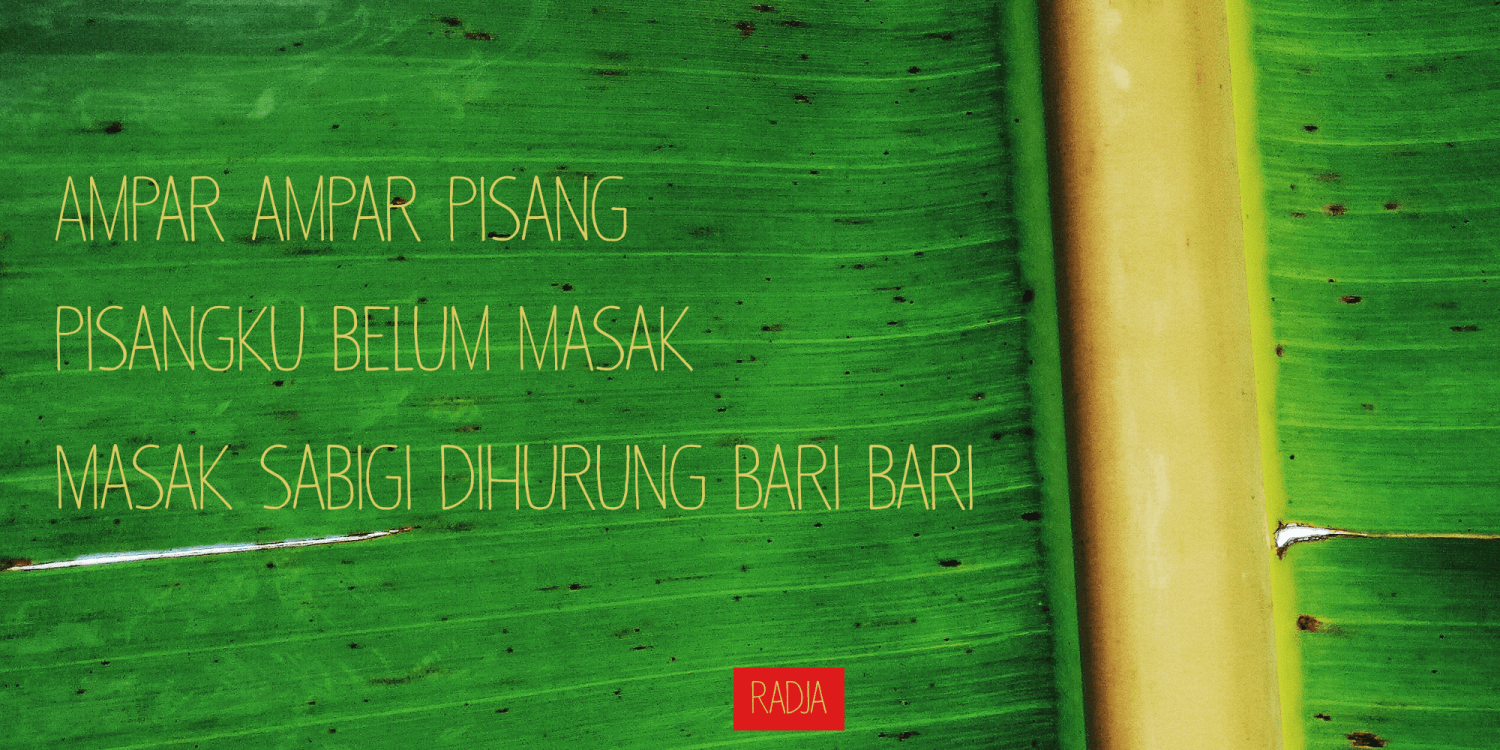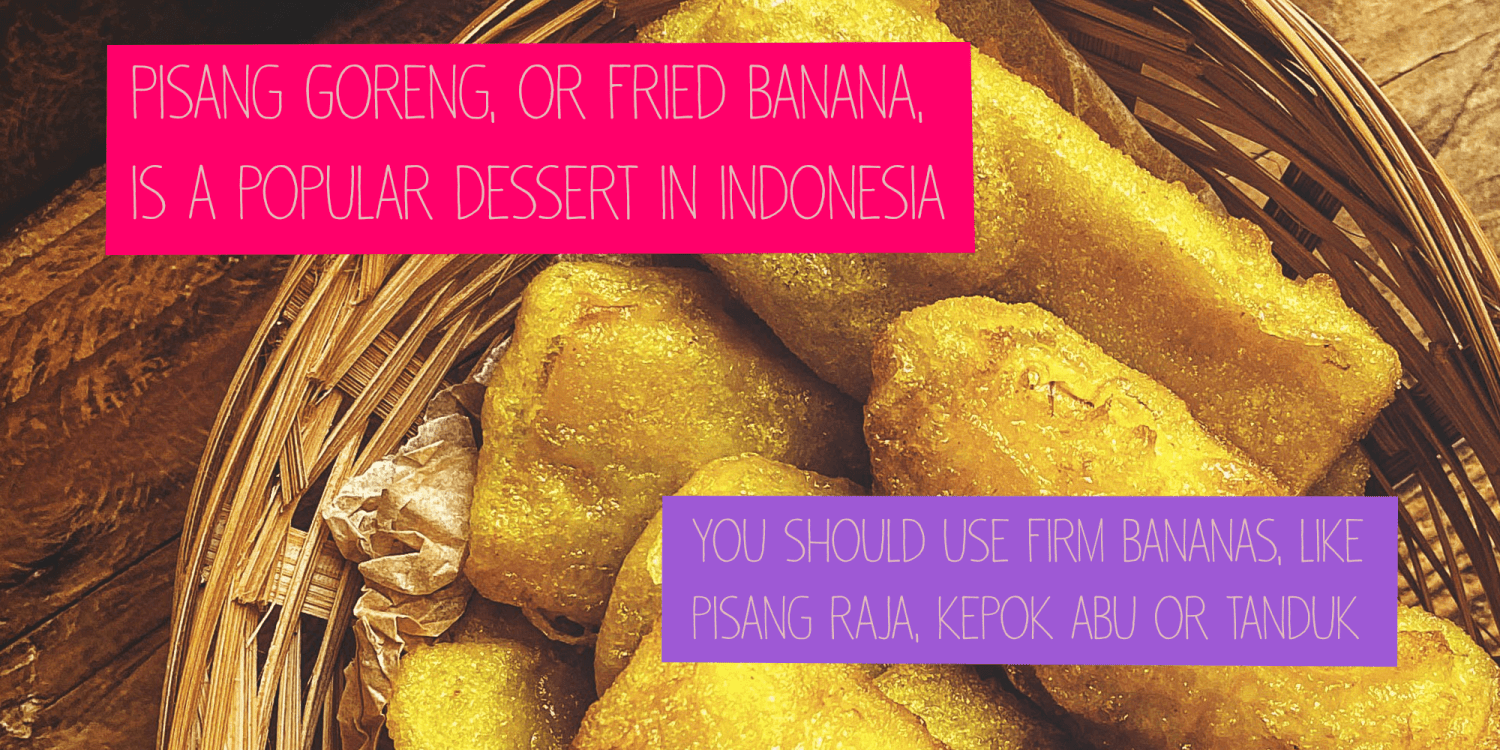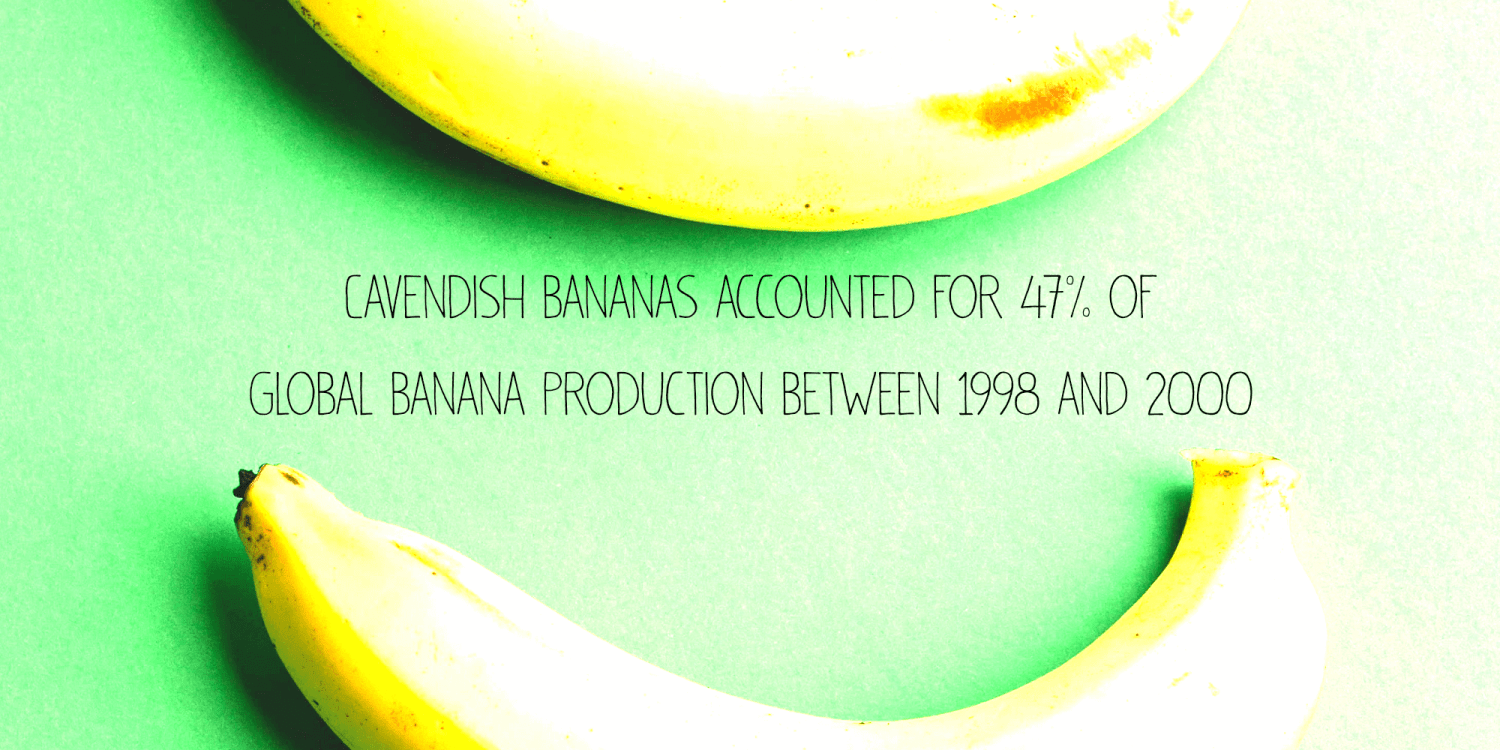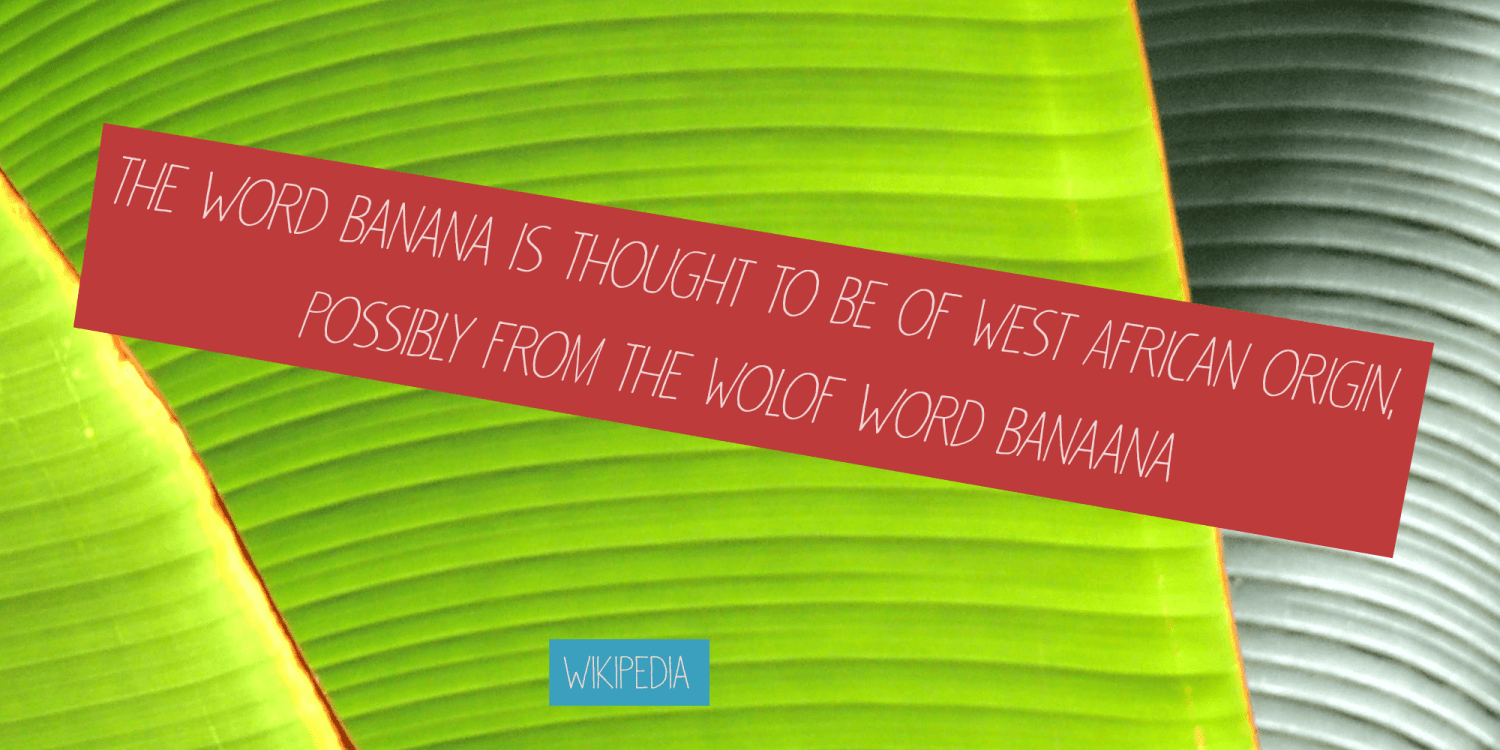
Pisang Manis means ‘sweet banana’ in Bahasa Indonesia. I don’t think this particular combination is used in everyday life, but it sounds nice. Pisang Manis is based on an older font of mine, called Pisang, which I created in 2013. It…